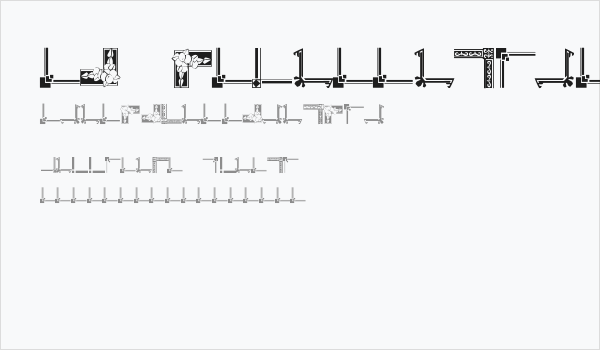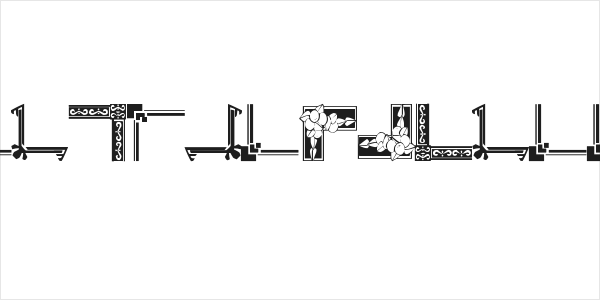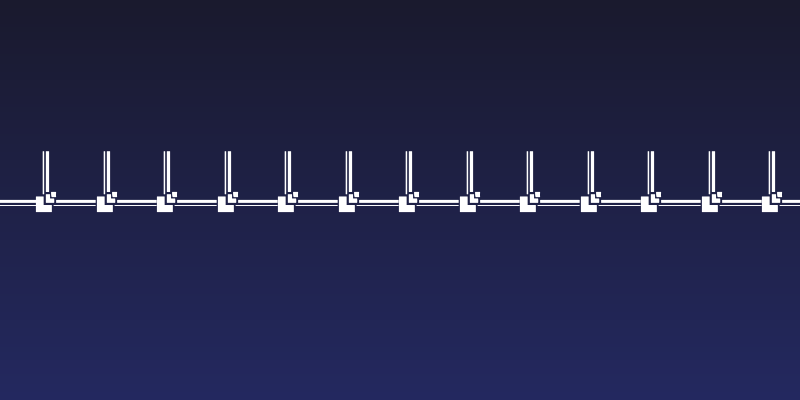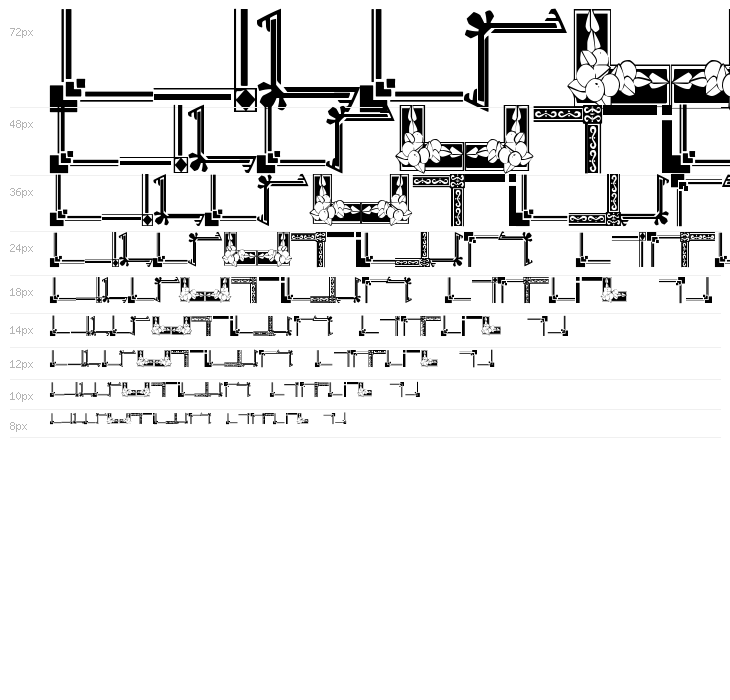
Vintage Decorative Corners 6 Font
Vintage Decorative Corners 6 Description
A decorative border and corner motif set featuring geometric and floral elements, with a vintage aesthetic. The designs include intricate patterns, stylized flowers, and bold lines, suitable for framing or embellishing documents and invitations.
| Overall Style | Vintage, Decorative |
| Use Case | Borders, Frames, Decorative accents |
| Proposed Projects | Wedding invitations, certificates, greeting cards, book covers, decorative frames, scrapbooking. |